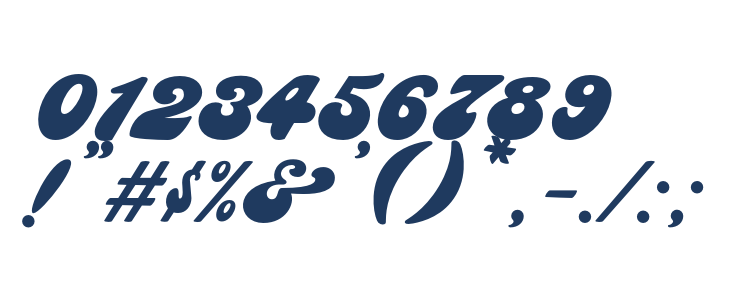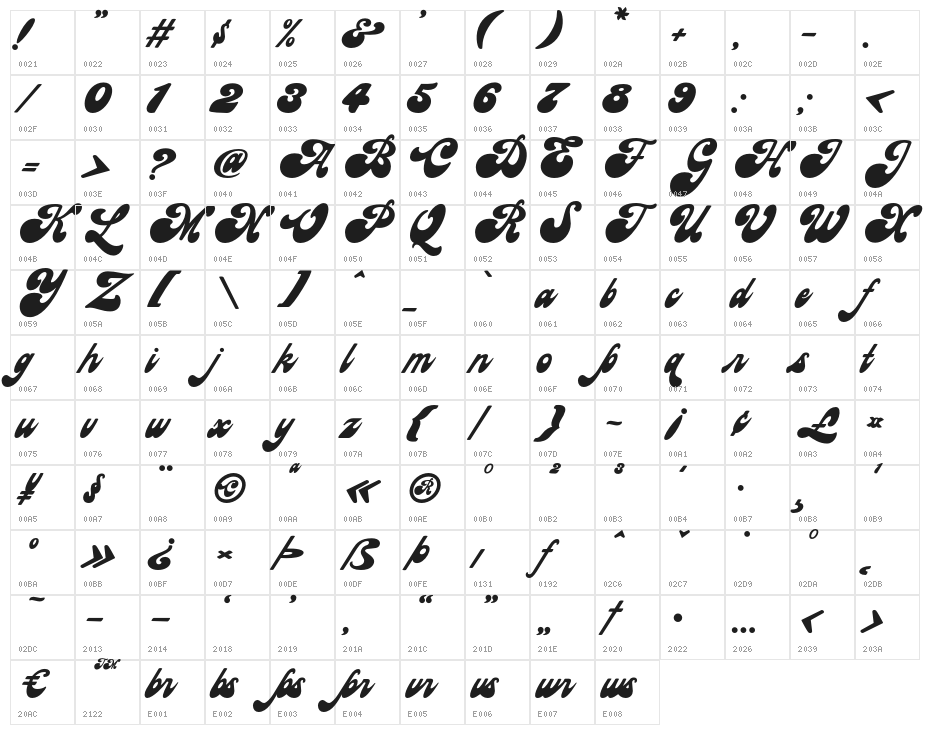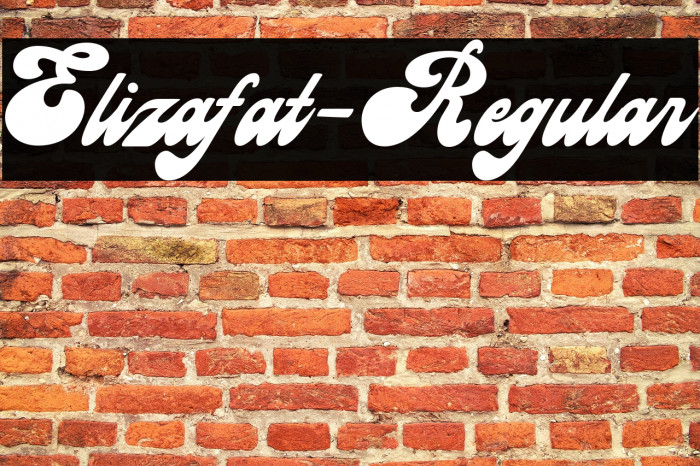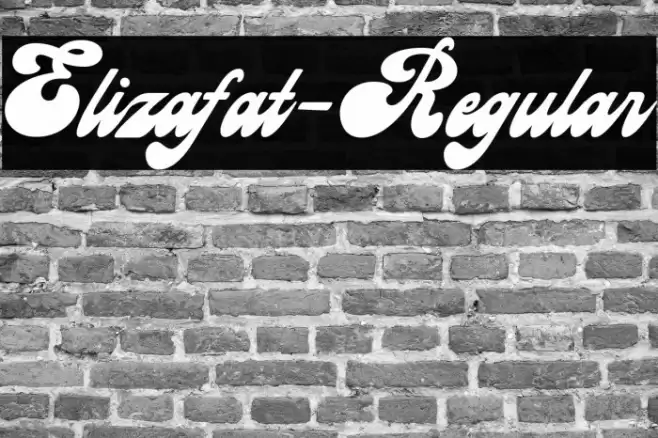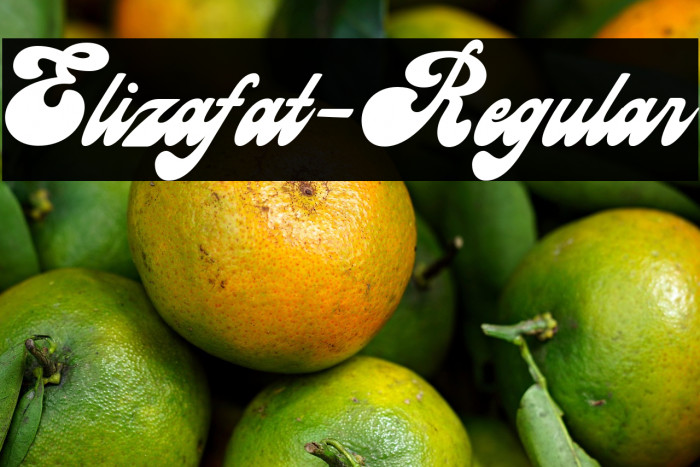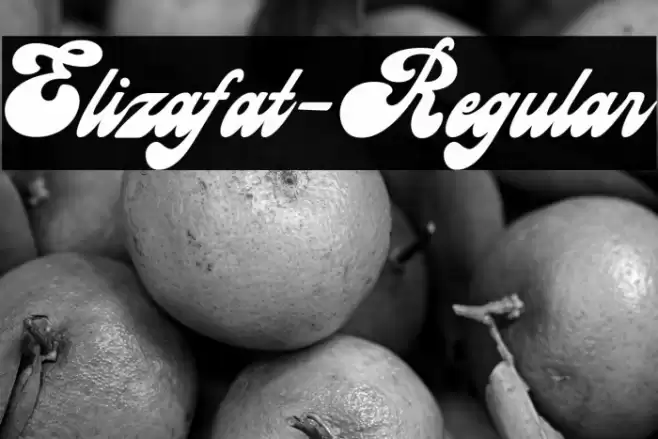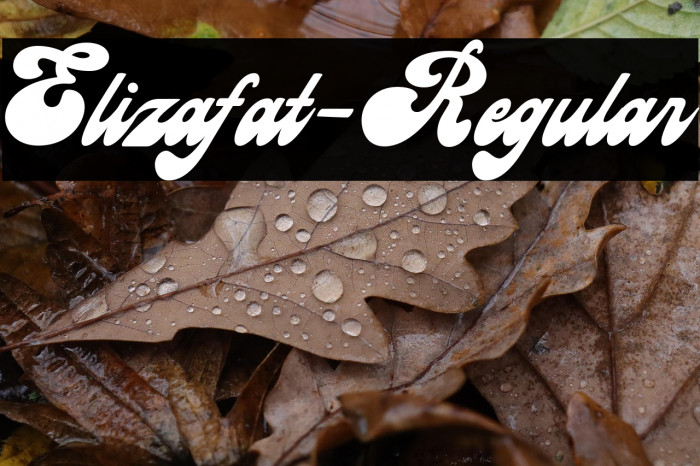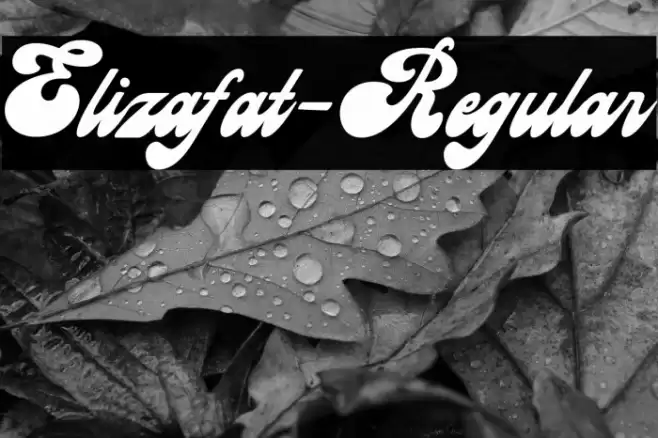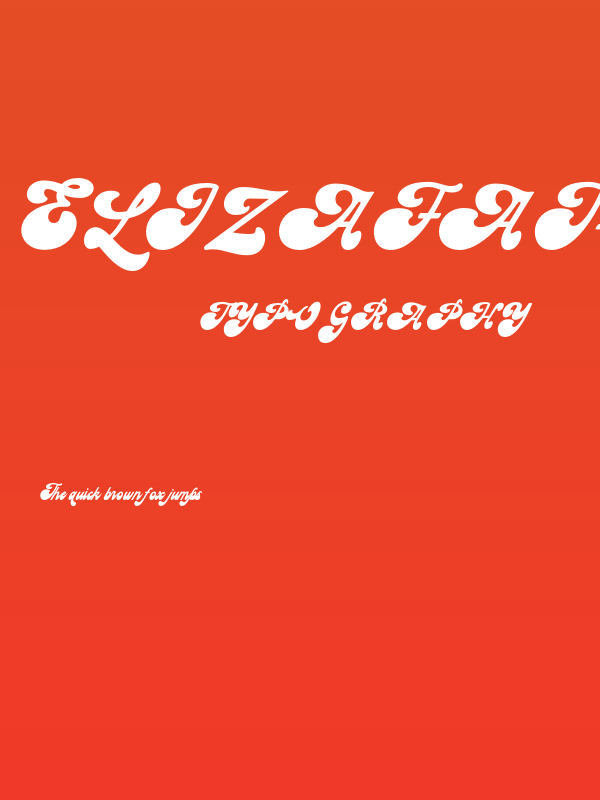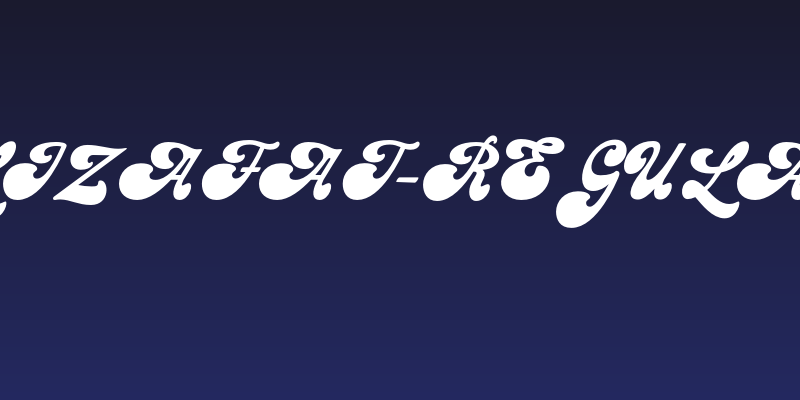
Elizafat-Regular Font
Elizafat-Regular Description
This font features a bold and expressive script style with a strong presence. The characters are connected, giving it a flowing and dynamic appearance. The uppercase letters are ornate, with exaggerated curves and loops, while the lowercase letters maintain a consistent rhythm and balance. The numerals are equally bold, matching the overall aesthetic of the font. Special characters are designed with the same attention to detail, ensuring they integrate seamlessly with the rest of the typeface. This font's playful yet sophisticated style makes it suitable for a variety of creative applications.
| Proposed Projects | Ideal for branding, packaging, invitations, and creative headlines. |